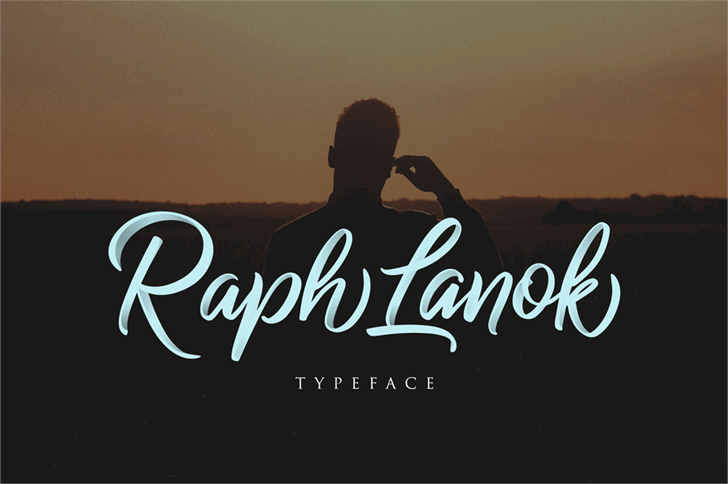
Raph Lanok Script Font
Introducing the most beautiful handwriting today, introducing Raph Lanok Typeface which has a elegant hand lettering brush style. It is handmade, and very dedicated to the author. Raph Lanok designed and shared by alit design. This font is best used for your design project that has the concept of fun, brave and sporty. Can also be applied to the design of a logotype, header website, make some lettering a quote, t-shirt design etc. Raph Lanok Typeface deserve to be one of your fonts collections, because it is unique and has many options of alternative glyphs.